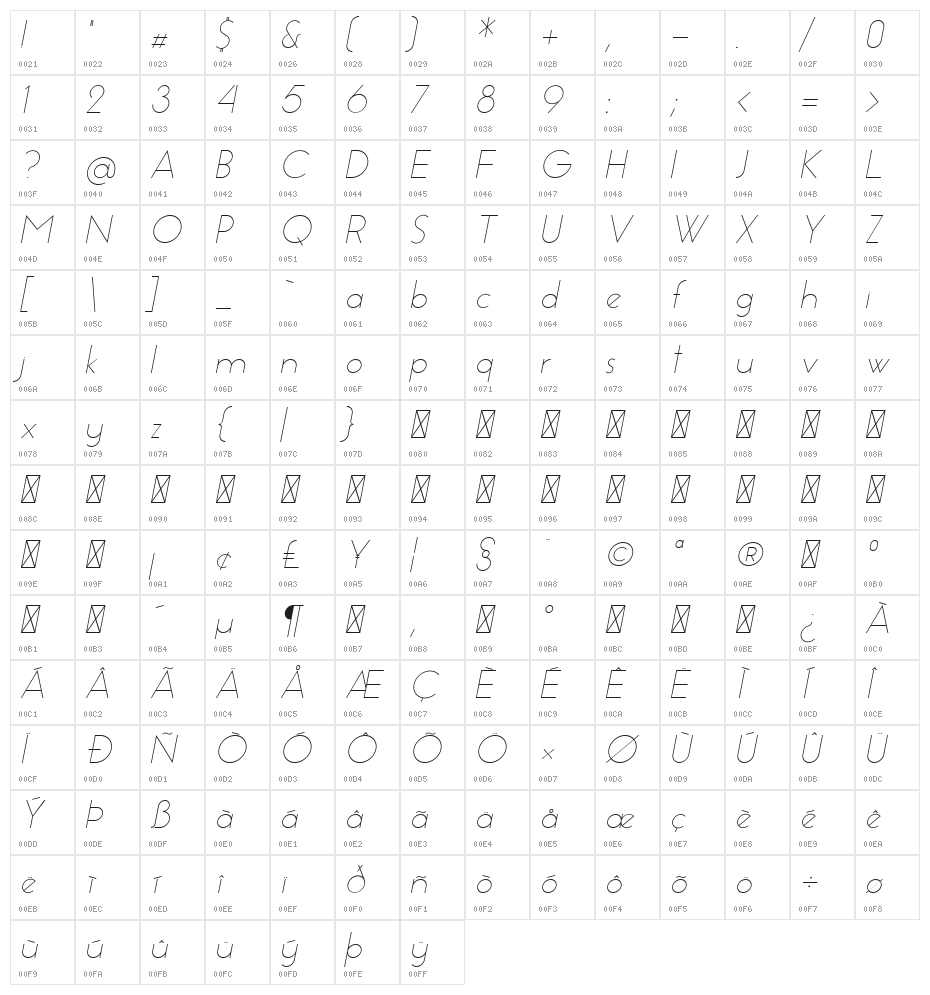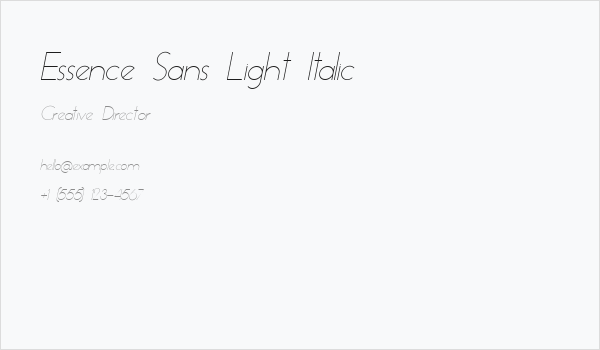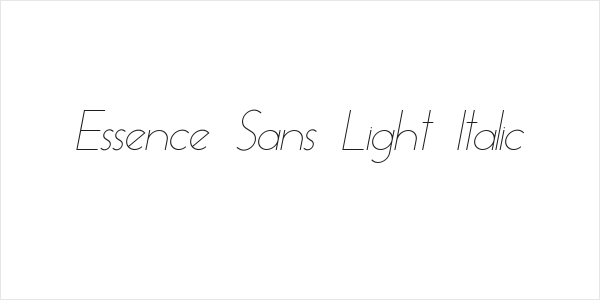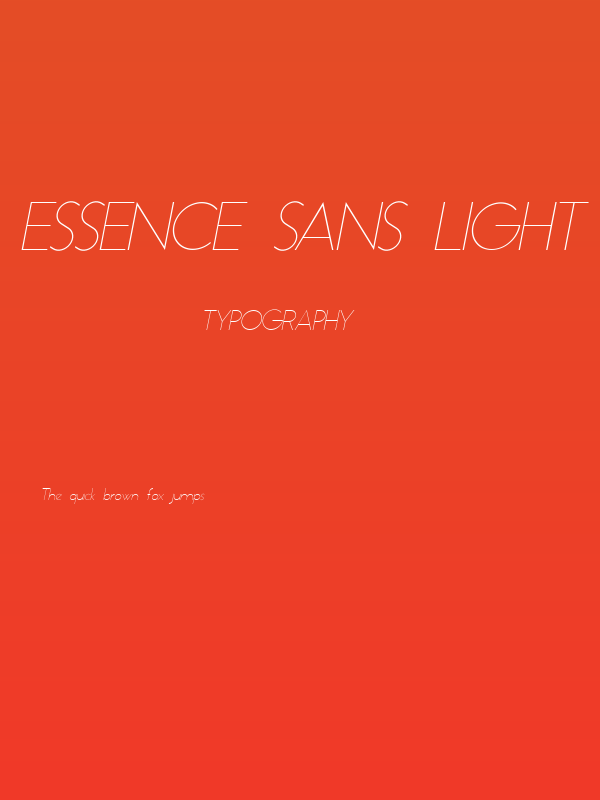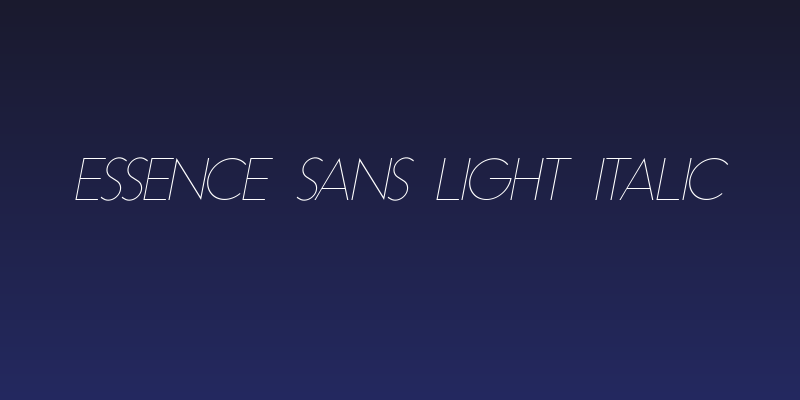
Essence Sans Light Italic Font
Essence Sans Light Italic Description
This font exhibits a sleek and modern design with a light and airy feel. The characters are elegantly crafted with a slight italic slant, giving a sense of motion and fluidity. The strokes are thin and consistent, contributing to a minimalist aesthetic. The uppercase letters are tall and narrow, while the lowercase letters maintain a harmonious balance with rounded edges. The numerals are clean and straightforward, matching the overall style. Special characters are distinct and maintain the font's elegant appearance. This font is ideal for projects that require a contemporary and sophisticated look.
| Proposed Projects | Ideal for fashion magazines, modern branding, elegant invitations, and minimalist websites. |